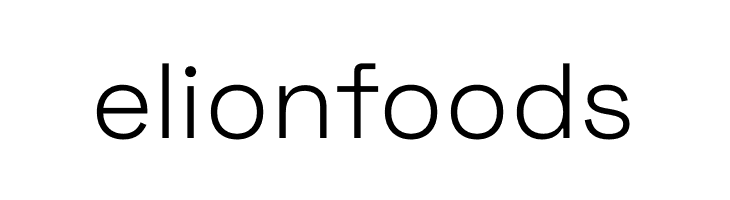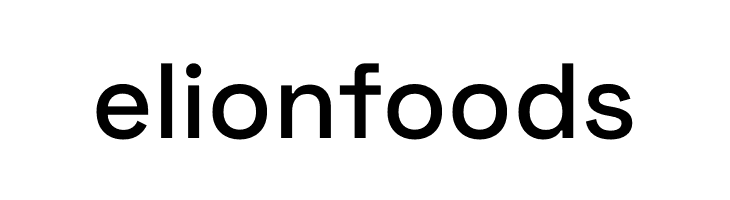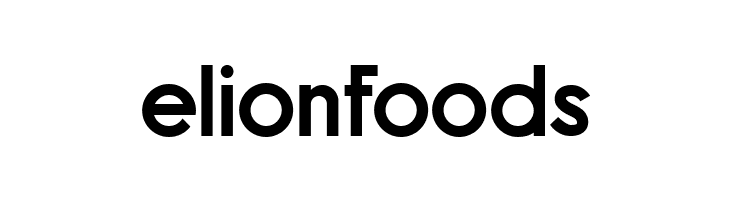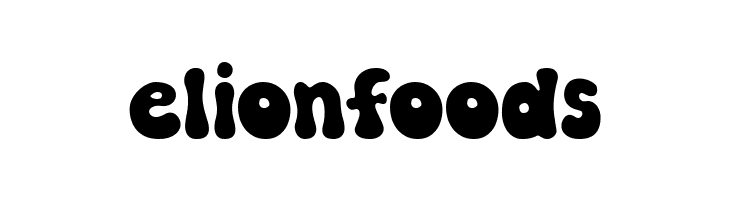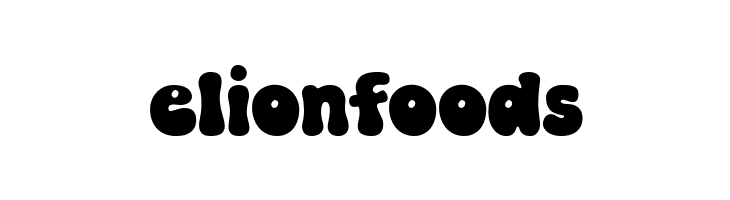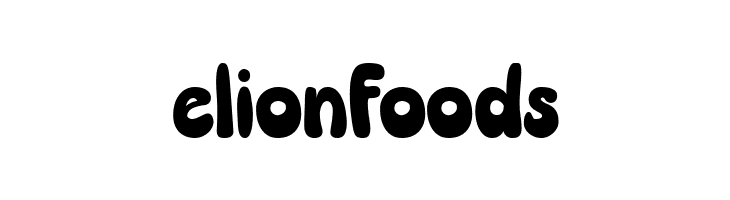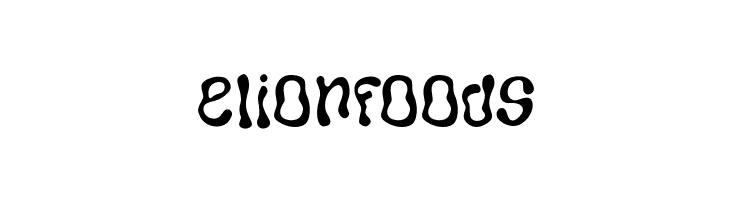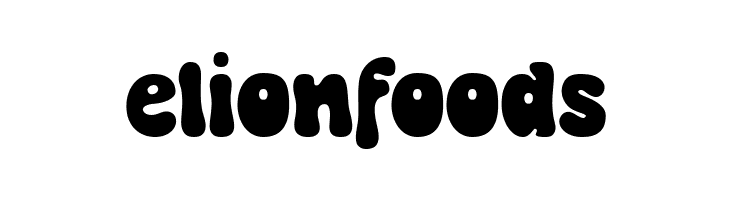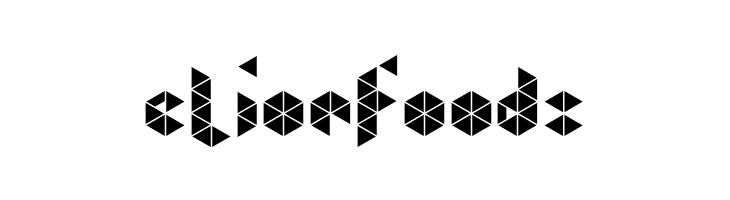
A modern, geometric sans-serif font with clean lines and balanced spacing.
A modern, geometric sans-serif font with a clean and balanced design.
A modern, bold font with smooth, rounded edges and consistent stroke width.
A bold, retro font with rounded, bubbly letterforms and a playful, groovy style.
A playful, bold font with rounded, bubbly characters perfect for creative projects.
A playful, bold, and slightly italicized font with rounded edges.
A playful, bold font with rounded, bubbly characters and a whimsical style.
A playful, wavy font with a fluid, dynamic appearance.
A playful, bold font with rounded, bubbly characters.